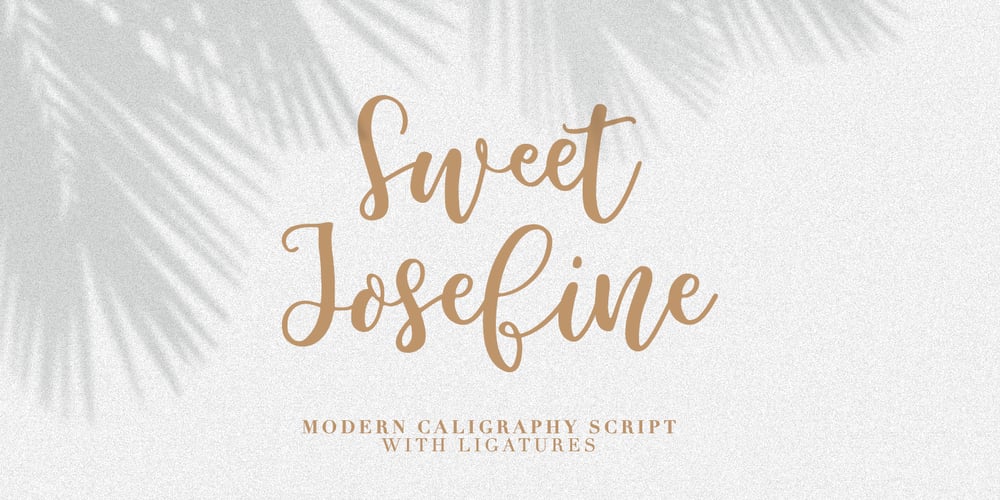
Sweet Josefine
Sweet Josefine font
Sweet Josefine Font Family was designed by Dmitrii Chirkov and published by Supfonts. Sweet Josefine contains 1 styles and family package options. Hello, friends. This is my new font, a classic calligraphic script. The font is super versatile and suitable for any project. You want to post on instagram? The menu in the cafe? A banner or sign on the website? IT’S EASY. Classic never gets old, your design will look fresh always.Test it out below to see how it could look for your next project!Includes: Regular Script Latin languages support Uppercase and lowercase Numbers and punctuation Swashes Ligatures Check out my blog: https://www.instagram.com/zloillev pinterest.com/dmitriychirkov7 Enjoy